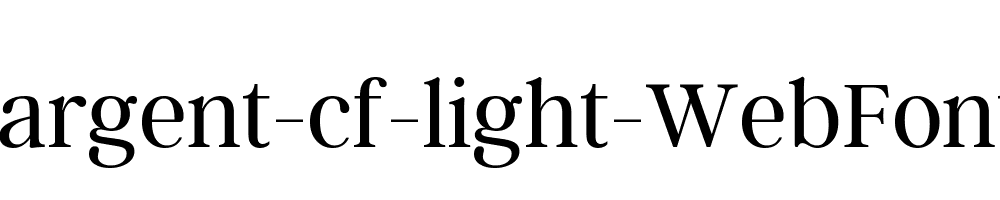
About argent-cf-light-WebFont
The font “Argent CF Light WebFont” is a classic typeface designed with elegance and sophistication in mind. With its clean lines and open counters, this font exudes a sense of timeless appeal. The sharp apexes and thick bracketing add a touch of modernity to its overall look, making it suitable for a wide range of design projects. The subtle curves of the bowls and loops give the font a friendly and approachable feel, while the sturdy stems and strong shoulders convey a sense of seriousness and professionalism. The bilateral serifs and delicate hairlines add a touch of refinement to the font, making it perfect for elegant and tasteful designs. Overall, the “Argent CF Light WebFont” strikes a perfect balance between classic and progressive, making it a versatile choice for any design project.